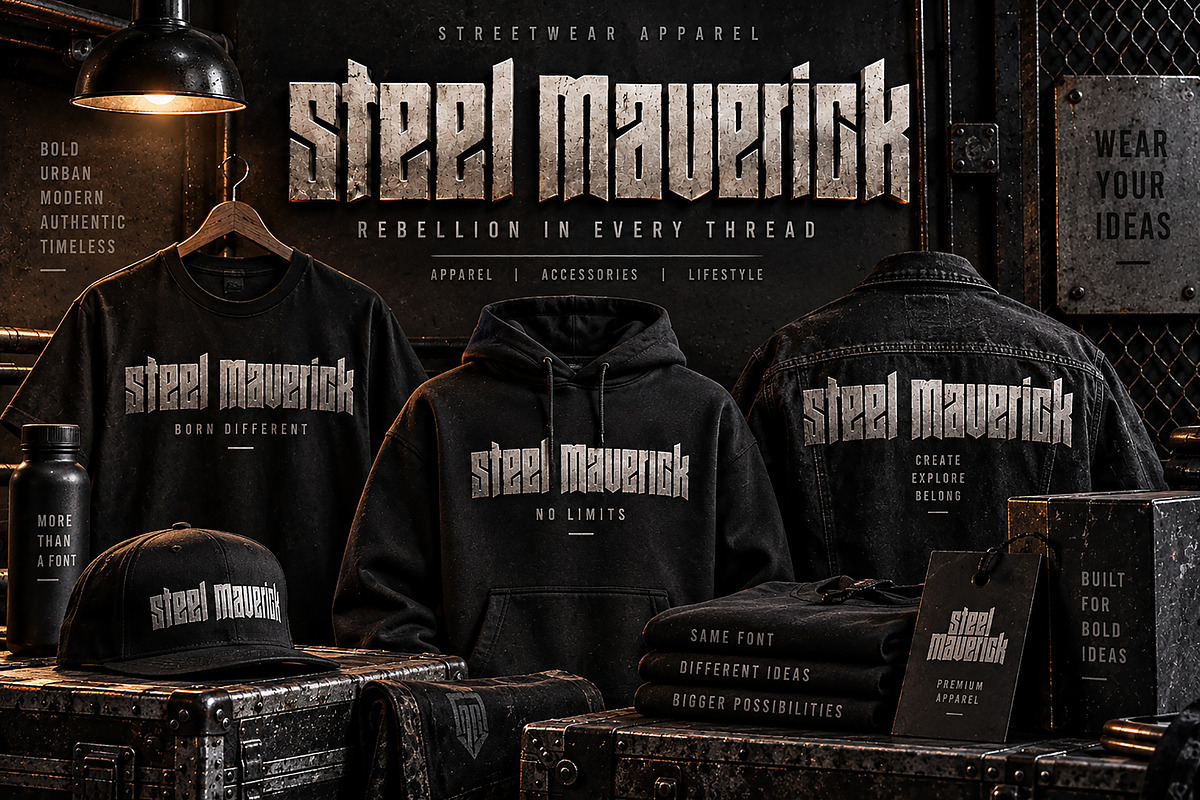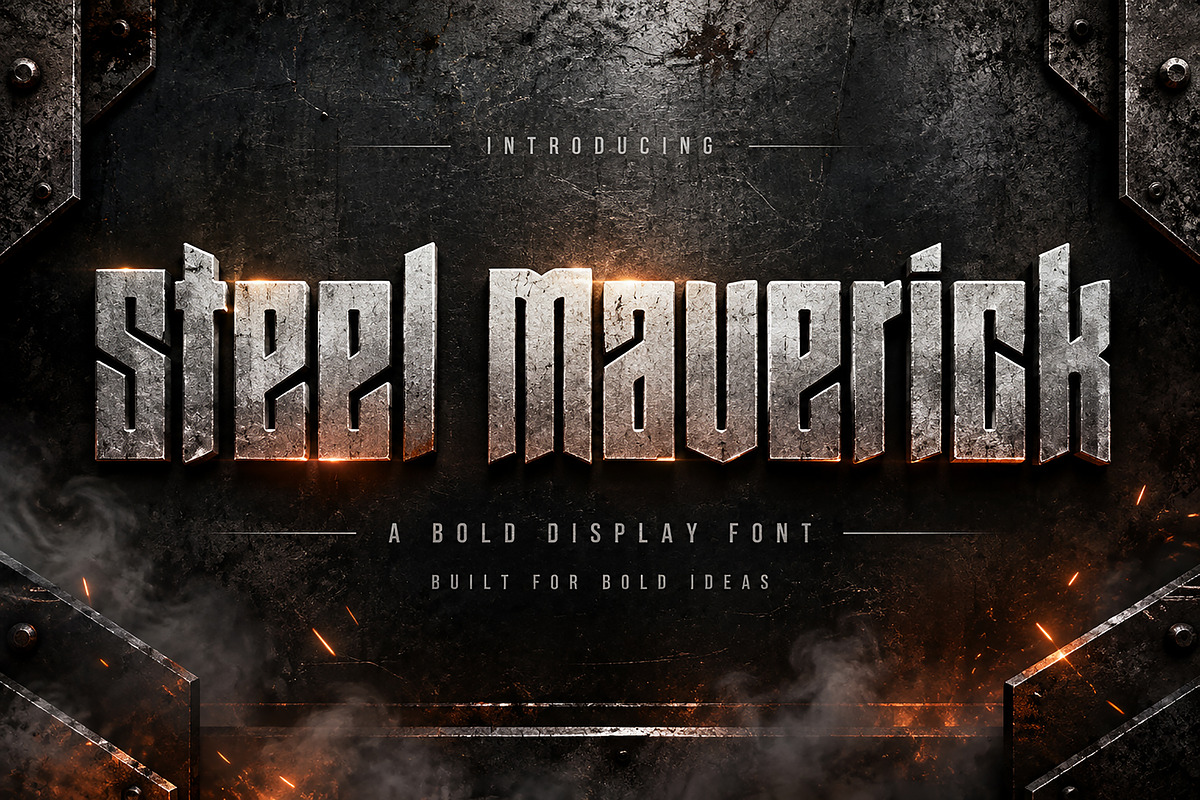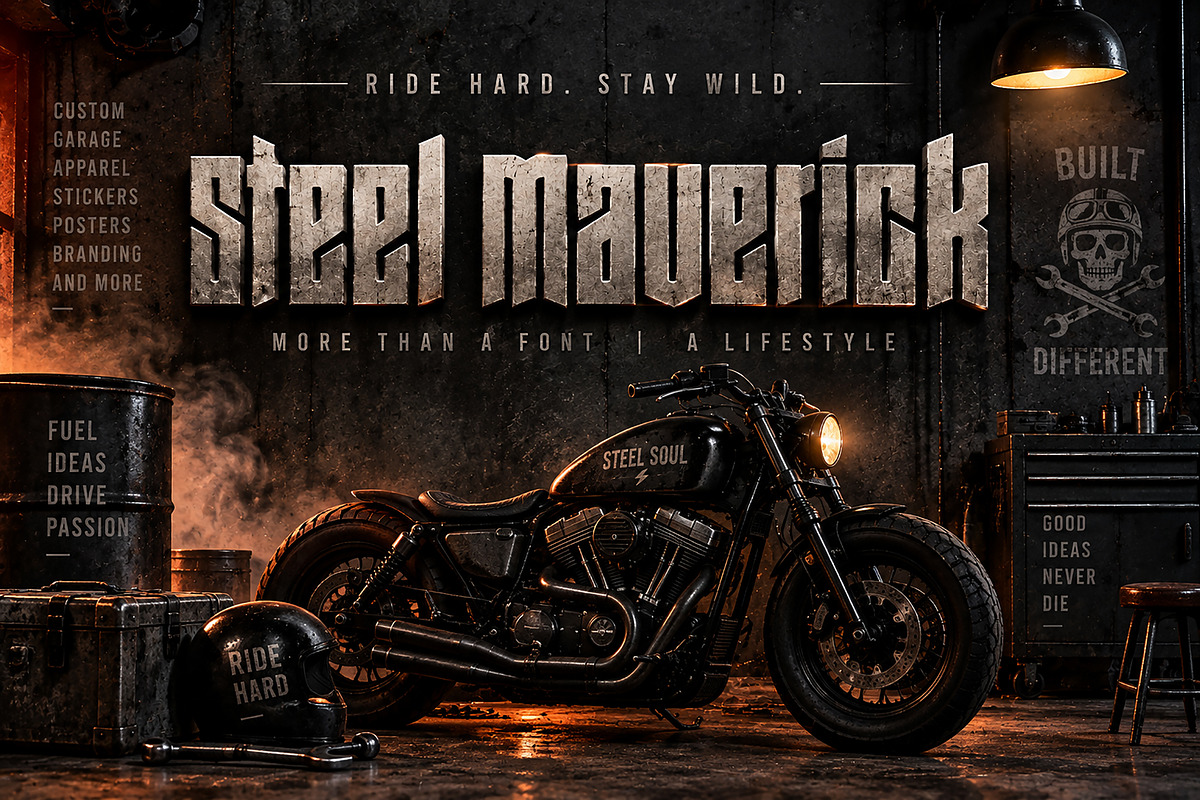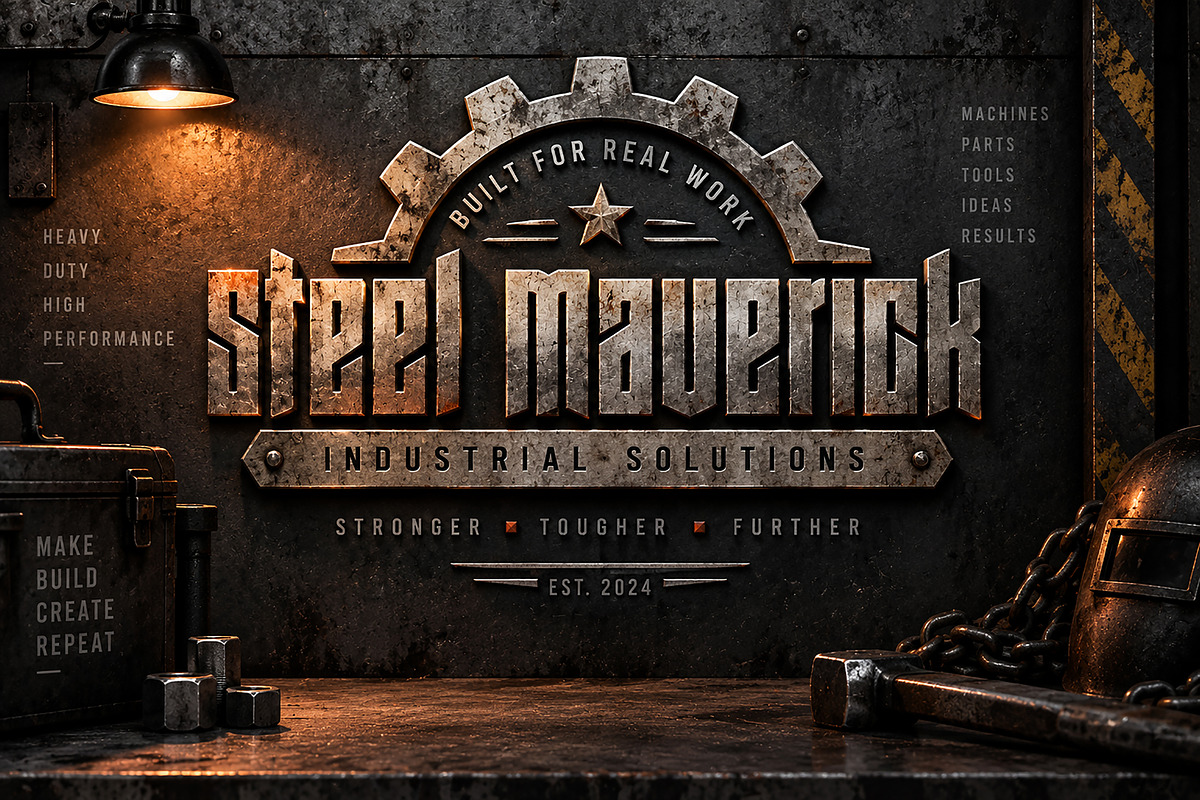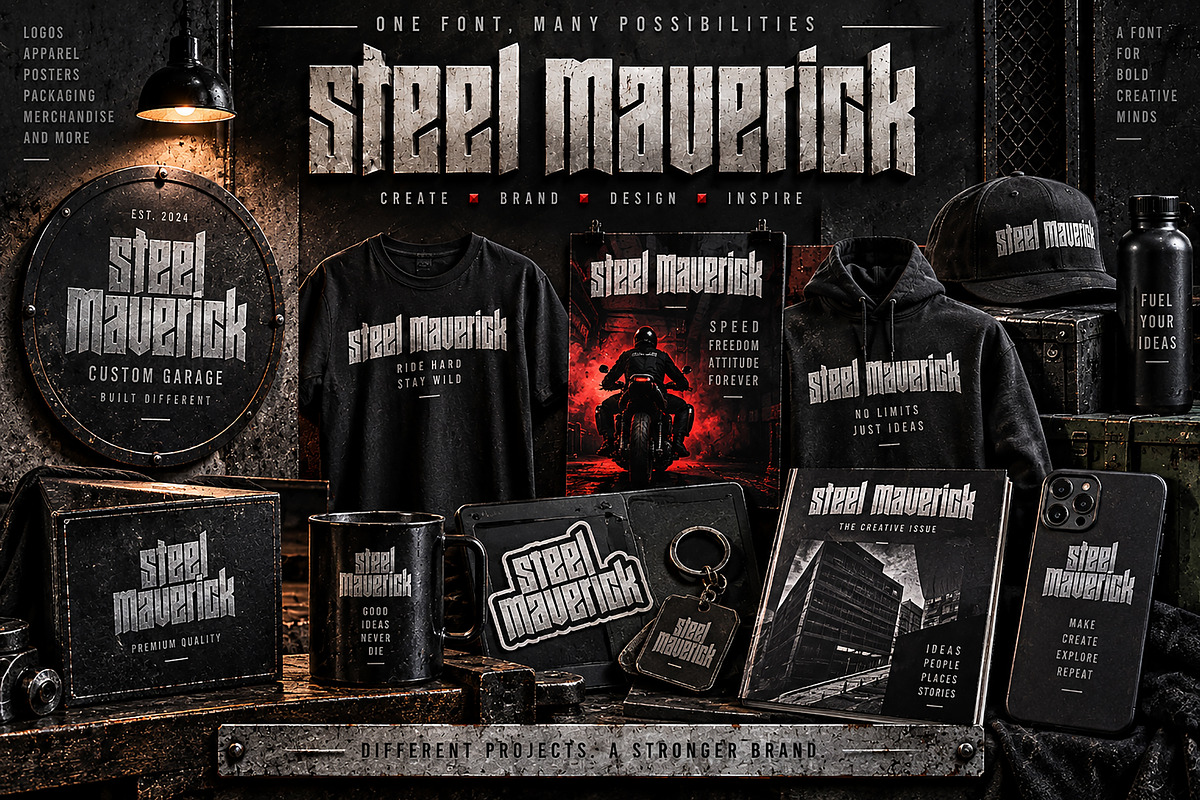
Steel Maverick
Steel Maverick is a bold, condensed display font built for powerful visual statements. Its sharp angular forms and rugged Gothic-inspired character create an aggressive, industrial aesthetic that instantly adds strength and attitude to your designs.
Perfect for projects that need a strong, rebellious, and masculine visual identity. Steel Maverick works especially well for streetwear branding, motorcycle graphics, automotive designs, posters, logos, merchandise, album artwork, labels, packaging, badges, stickers, gaming graphics, and industrial-themed projects.
Its distinctive letterforms are designed to stand out in both large-scale headlines and impactful branding applications.
Streetwear & Clothing Brands
Motorcycle & Garage Graphics
Automotive Branding
Logos & Brand Identity
Posters & Flyers
T-Shirt & Apparel Designs
Album & Music Artwork
Stickers & Patches
Labels & Badges
Gaming & Esports Graphics
Industrial & Vintage Projects
Merchandise & Promotional Designs
Style: Bold / Condensed / Gothic / Industrial Display
Steel Maverick — Built for bold ideas, powerful brands, and designs that refuse to blend in.